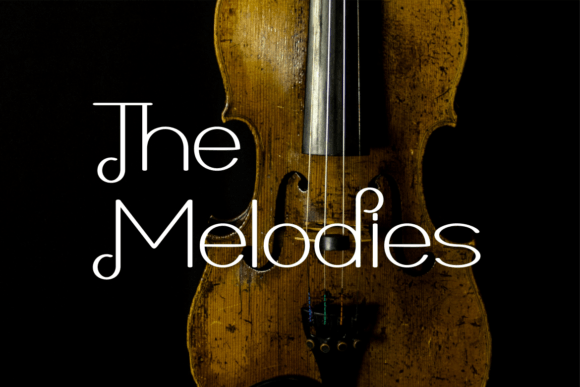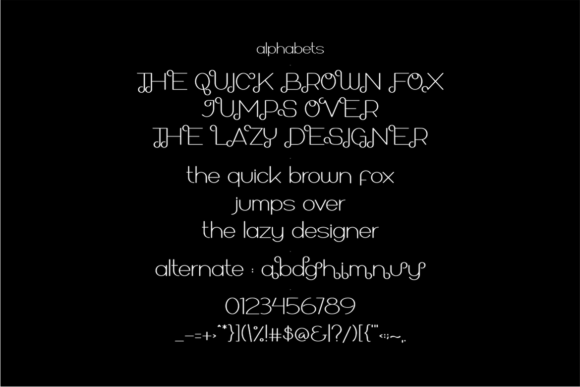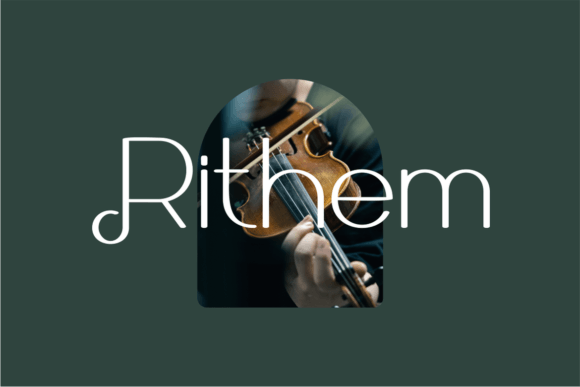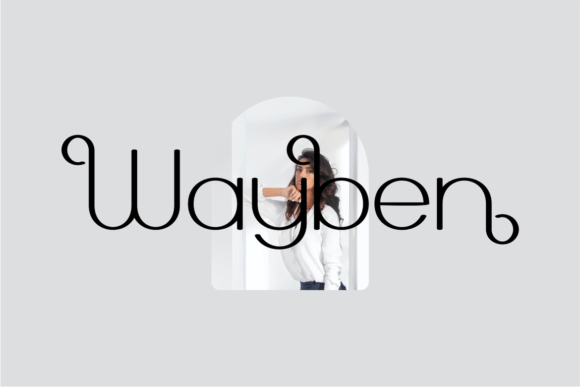
Introducing Hallodey Font: Elevate Your Designs with Elegance and Sophistication
In the world of typography, fonts play a crucial role in conveying the tone and personality of a brand or design. For designers and crafters seeking a font that exudes elegance, class, and modernity, Hallodey Font is an exceptional choice. This stunning sans serif font is versatile and can be used for a wide range of projects, from fashion and apparel to logos, branding, and advertisements.
What Makes Hallodey Font Stand Out?
Hallodey Font is characterized by its clean lines, sophisticated curves, and contemporary aesthetic. Its sans serif design gives it a sleek and modern look, making it perfect for designs that require a touch of elegance and refinement. The font’s versatility is one of its most notable features, allowing it to seamlessly integrate into various design projects.
Ideal for Fashion and Apparel Projects
Fashion and apparel designers often seek fonts that can convey a sense of style and sophistication. Hallodey Font fits the bill perfectly, with its elegant and classy appearance. It can be used for:
- Logos and branding: Create a lasting impression with a font that exudes luxury and refinement.
- Signatures: Add a touch of sophistication to your designs with a font that screams elegance.
- Album covers: Give your music projects a professional and stylish look with Hallodey Font.
- Magazines and social media: Elevate your content with a font that is both modern and refined.
Beyond Fashion: Exploring Other Use Cases for Hallodey Font
While Hallodey Font is particularly well-suited for fashion and apparel projects, its versatility extends far beyond. Consider using it for:
- Advertisements: Create eye-catching ads that convey a sense of luxury and sophistication.
- Signage and packaging: Use Hallodey Font to create visually appealing signage and packaging that stands out.
- Digital and print media: From brochures to e-books, Hallodey Font is a great choice for any project that requires a touch of elegance.
Why Designers and Crafters Love Hallodey Font
So, what makes Hallodey Font a favorite among designers and crafters? Here are just a few reasons:
- Ease of use: Hallodey Font is incredibly easy to use, even for those who are new to design.
- Customization options: With a range of customization options available, you can tailor Hallodey Font to suit your design needs.
- Cross-platform compatibility: Hallodey Font works seamlessly across various platforms and devices.
In conclusion, Hallodey Font is an exceptional choice for designers and crafters seeking a font that embodies elegance, class, and modernity. Its versatility, ease of use, and range of customization options make it an ideal choice for a wide range of projects. Whether you’re working on a fashion brand, creating an album cover, or designing an advertisement, Hallodey Font is sure to elevate your design and leave a lasting impression.